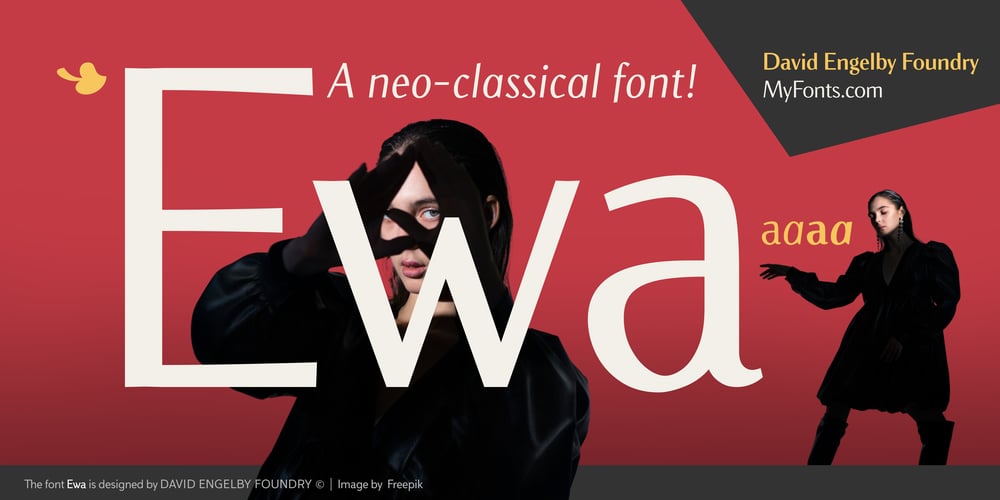
Ewa font
Ewa Font Family was designed by David Engelby and published by David Engelby Foundry. Ewa contains 4 styles and family package options. Ewa is a sans serif font with inspiration from the great old serif fonts! Ewa is the unique Polish name for Eve/Eva.The font Ewa comes with: numerals for default, old style and small caps settings four family variations: Regular, Italic, Bold and Bold Italic a rich variety of European language glyphs Two styles of parentheses (round brackets) for upper and lower case glyphs. The lower case parentheses are also suitable for small caps. Ewa is perfect for visual designs of magazines, books, posters, logotype and both physical and digital branding materials.